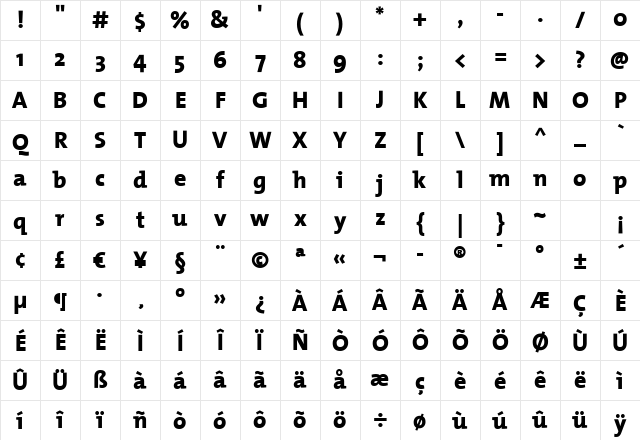
TheMix ExtraBold
TheMix Family
TheMix ExtraBold
Complete TheMix ExtraBold glyph index. Displaying only characters natively supported by TheMix ExtraBold font.
Design Context for TheMix
TheMix is a composed and adaptable typeface that performs quietly and consistently across a wide range of design contexts. Its bold stroke weight gives it real presence on the page.